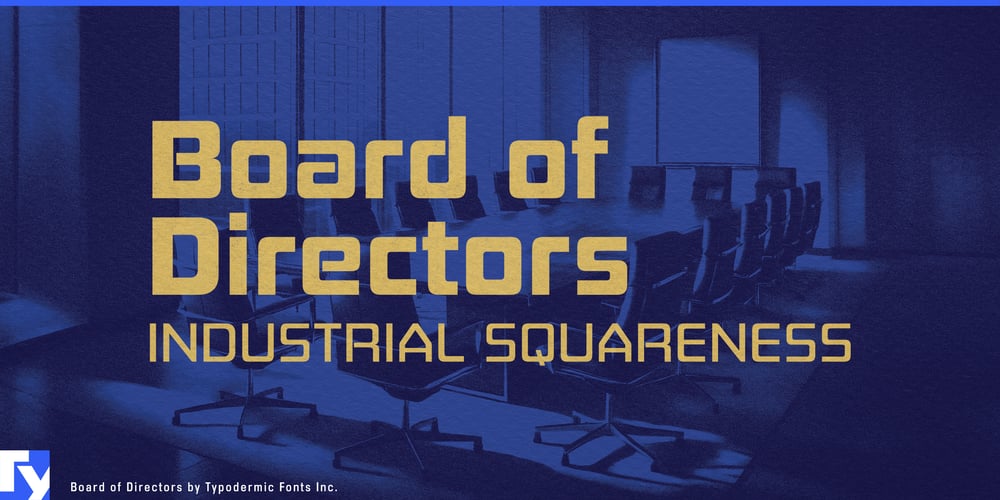
Board of Directors
Board of Directors font
Board of Directors Font Family was designed by Ray Larabie, Chikako Larabie and published by Typodermic. Board of Directors contains 16 styles and family package options. Introducing Board of Directors—a groundbreaking typeface engineered to revolutionize your corporate messaging. This state-of-the-art, square display font embodies the pinnacle of typographic innovation, drawing inspiration from the cutting-edge hi-tech logos of the 1970s while propelling your communications into the future.Board of Directors isn’t just a font—it’s a strategic asset for your organization. Its meticulously crafted stroke gaps optimize perceived character weight, ensuring maximum legibility in scientific and technical applications. The large x-height and tight curves command attention, much like a CEO addressing a packed shareholder meeting. With seven weights and accompanying italics, Board of Directors offers unparalleled versatility. From the subtlest quarterly report footnote to the boldest mission statement, this typeface adapts to every level of your corporate hierarchy. The flat sides of the A and V pay homage to dot matrix printers, seamlessly blending nostalgia with forward-thinking design—perfect for companies that value both tradition and innovation.Board of Directors speaks the language of global business fluently. Supporting a vast array of Latin-based European writing systems, it ensures your message resonates from the boardrooms of Frankfurt to the start-up incubators of Stockholm. Whether you’re drafting an international merger agreement or designing a multinational marketing campaign, Board of Directors communicates with authority and precision. Choose Board of Directors when you need to make a statement that resonates across all levels of management. It’s more than a typeface—it’s a visual representation of your company’s commitment to excellence, progress, and results-driven communication. Let Board of Directors be the cornerstone of your corporate identity, ready to tackle the challenges of today’s fast-paced business landscape.Invest in Board of Directors today, and watch as your corporate communications ascend to unprecedented levels of professionalism and impact. Because in the high-stakes world of business, every character counts.